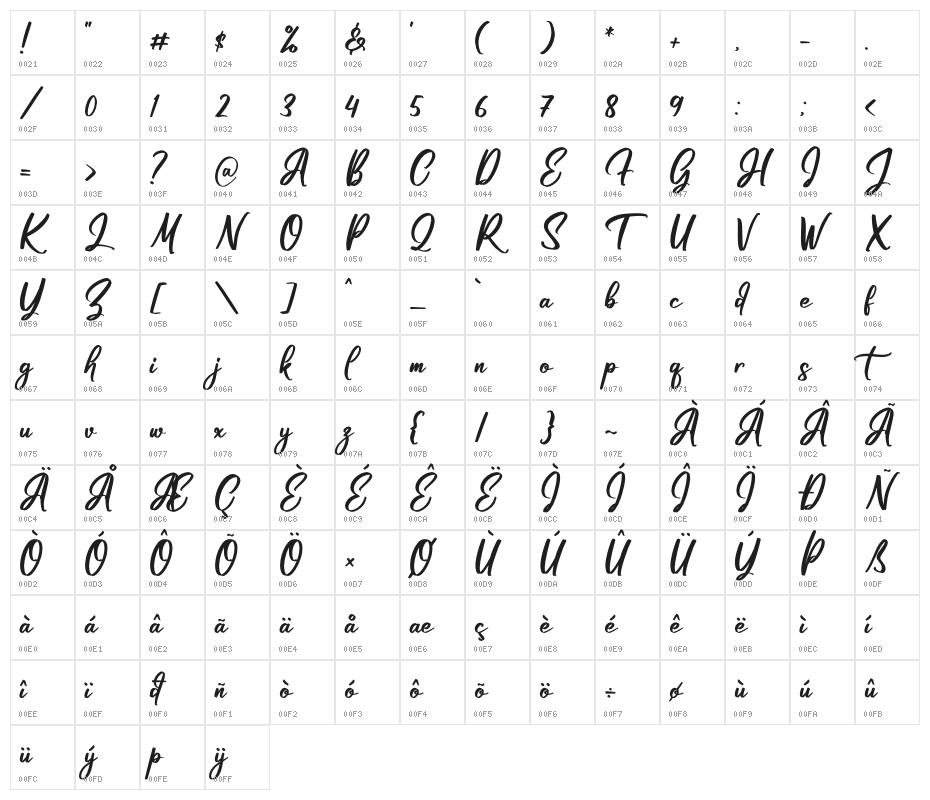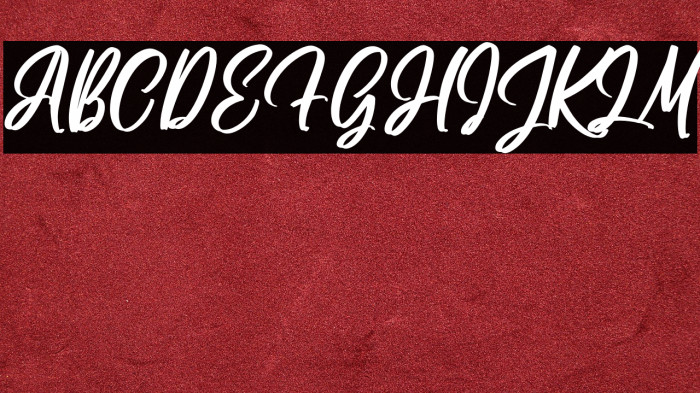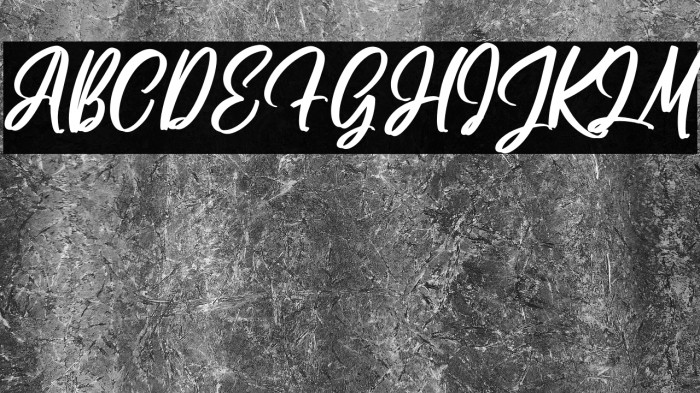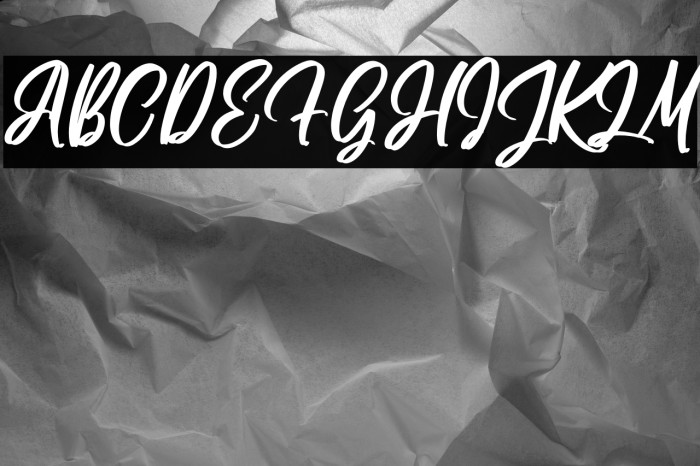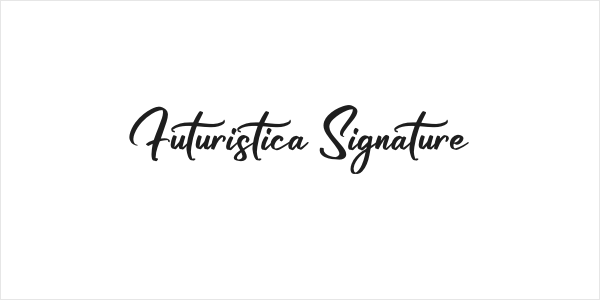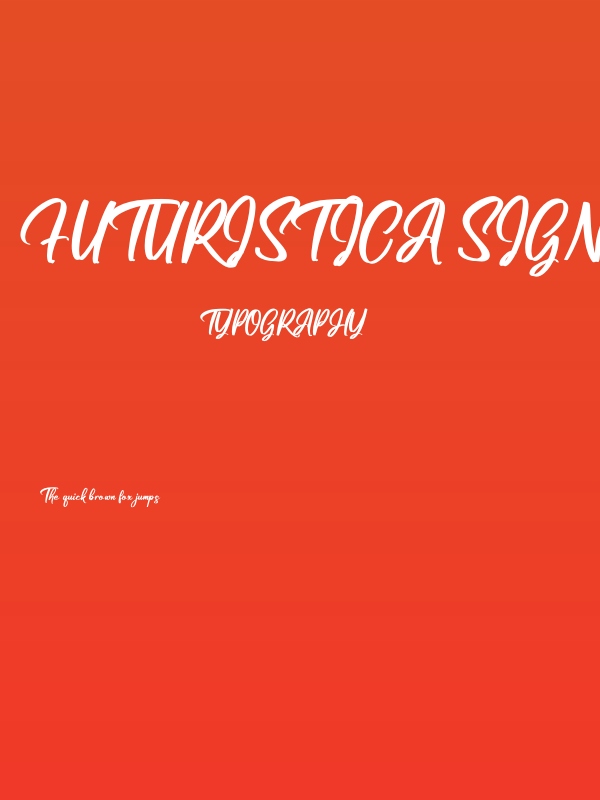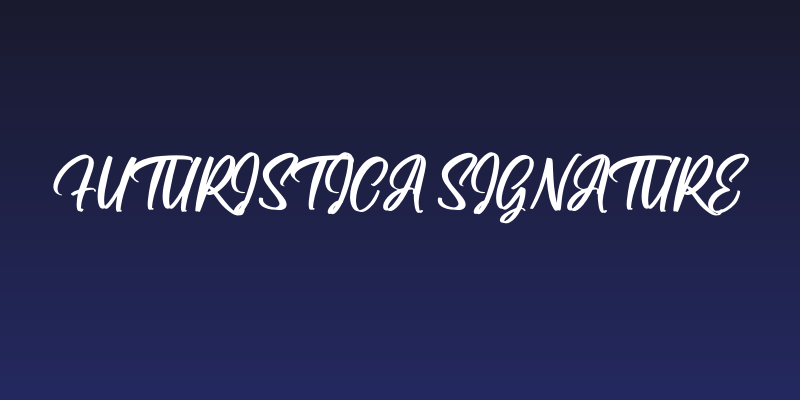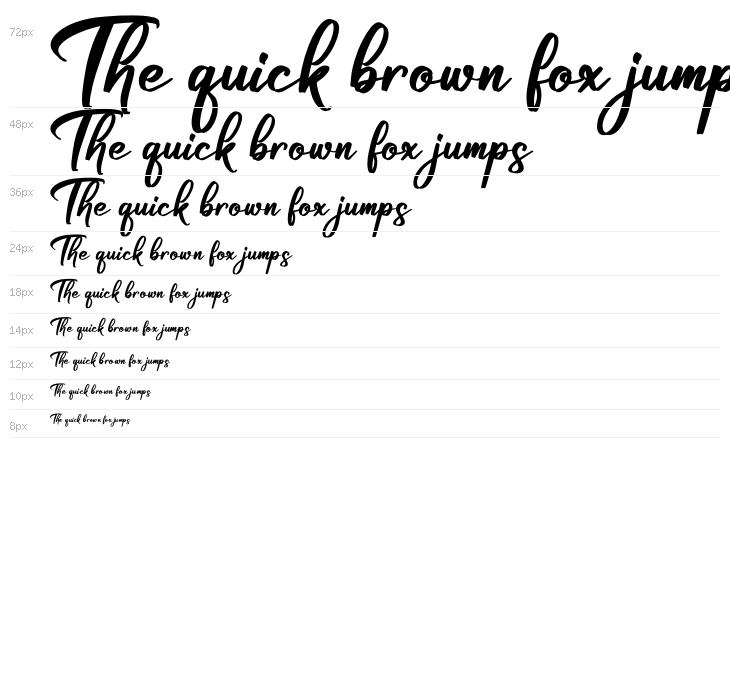
Futuristica Signature Font
Futuristica Signature Description
This font exudes a modern, elegant flair with its fluid, cursive style. The characters are designed with a smooth, flowing script that mimics the natural motion of handwriting. Each letter is crafted with a sense of movement and grace, featuring high contrast between thick and thin strokes. The uppercase letters are bold and prominent, while the lowercase letters maintain a consistent flow, enhancing readability. The numerals and special characters are equally stylish, integrating seamlessly with the overall design. This font is perfect for adding a personal touch to any project, offering a sophisticated yet approachable aesthetic.